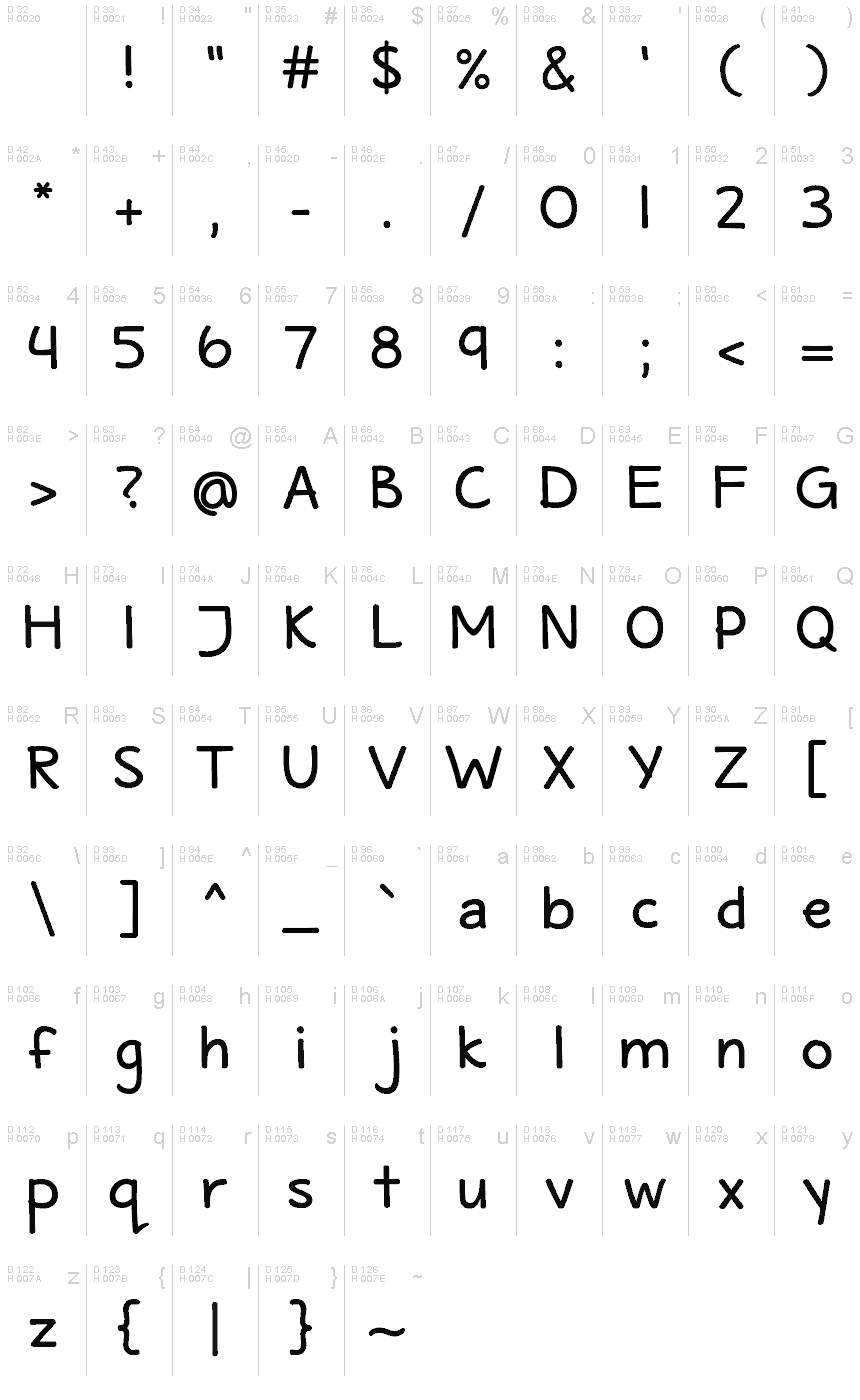
Maritime Tropical Neue Double Bold
Maritime Tropical Neue is a captivating handwritten font that exudes a distinct maritime charm. Crafted by the renowned designer letterpunch, this double bold iteration of the Maritime Tropical typeface boasts enhanced typography, delivering a refined yet vibrant aesthetic.
The font's organic, fluid strokes evoke a sense of coastal tranquility, making it an exceptional choice for branding, editorial design, and creative projects with a nautical flair. Its versatility allows it to seamlessly integrate into a wide range of design contexts, from product packaging to event materials, effectively conveying a laid-back, adventurous spirit.
This release introduces better kerning and spacing, better harmonization, redesigned characters, many math symbols and accented glyphs, English IPA support, dashes, and ligatures such as fi.
UpdateFixed a few remaining kerning issues (r-o), tweaked bold "a".